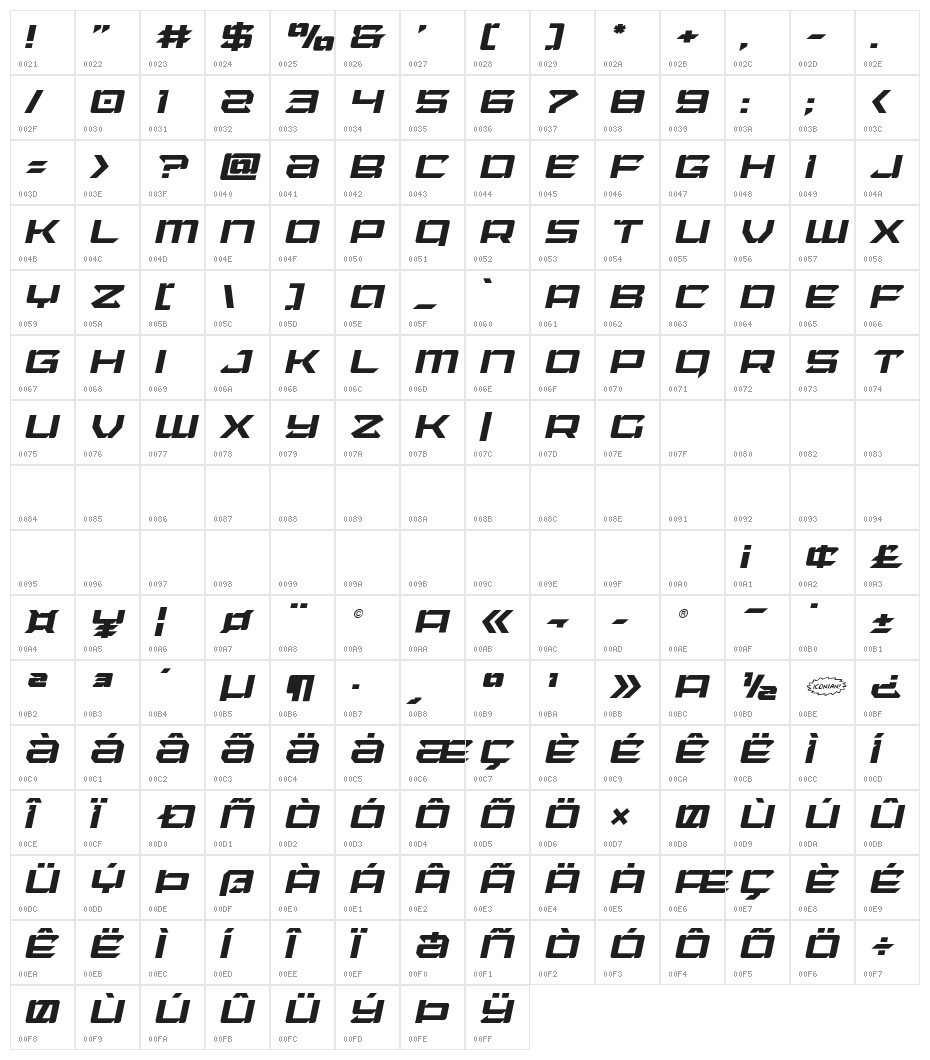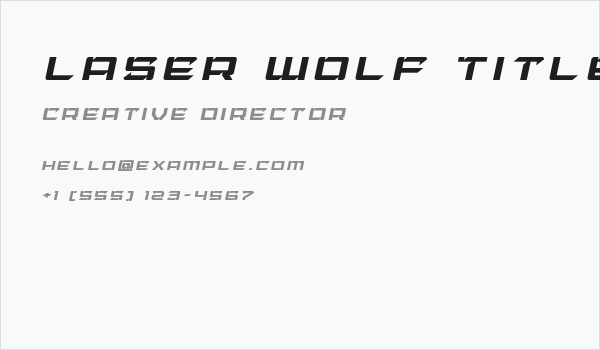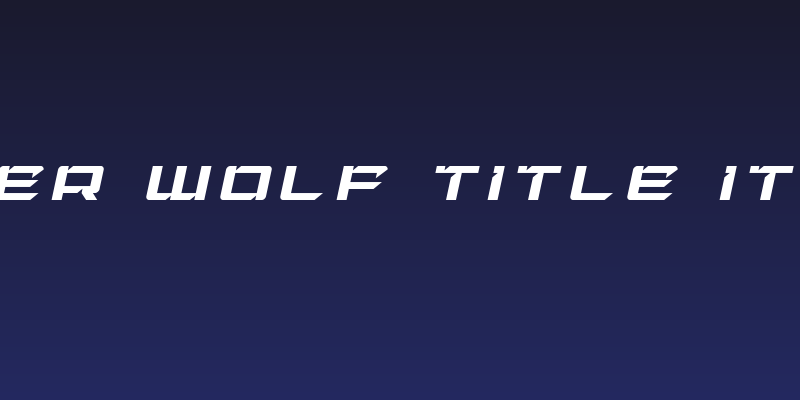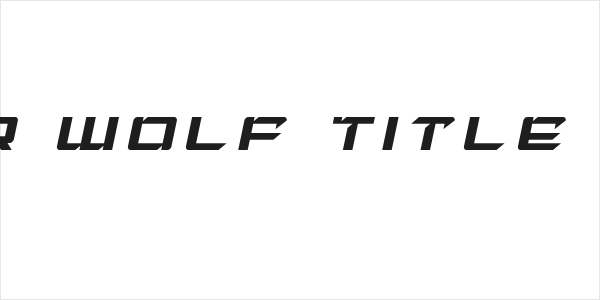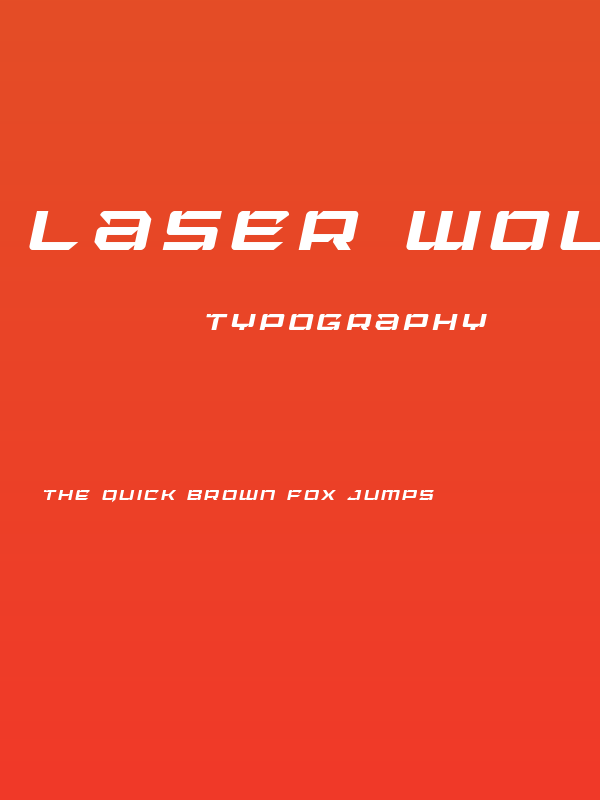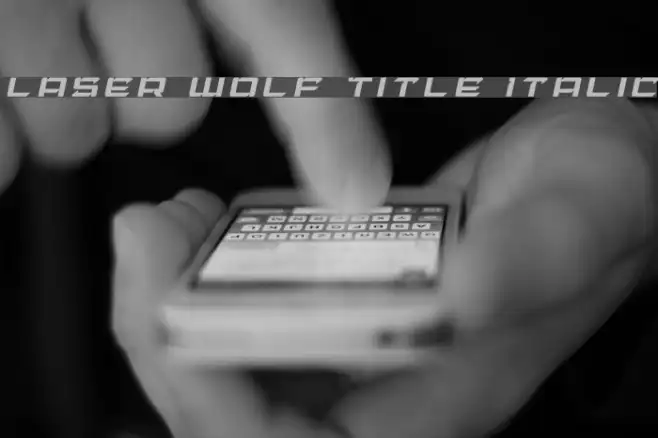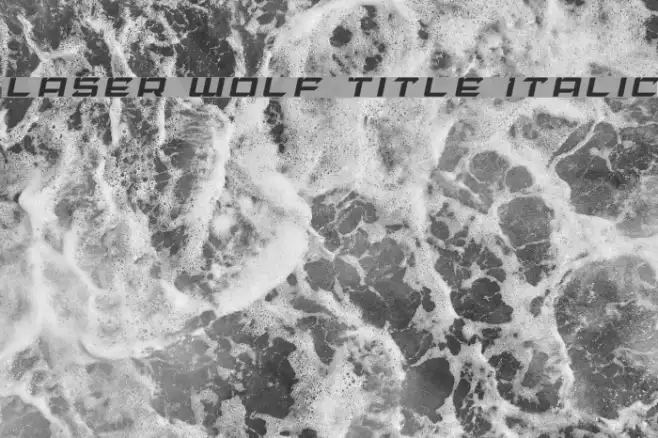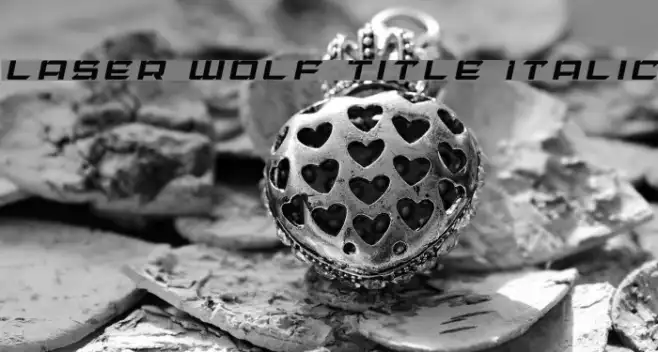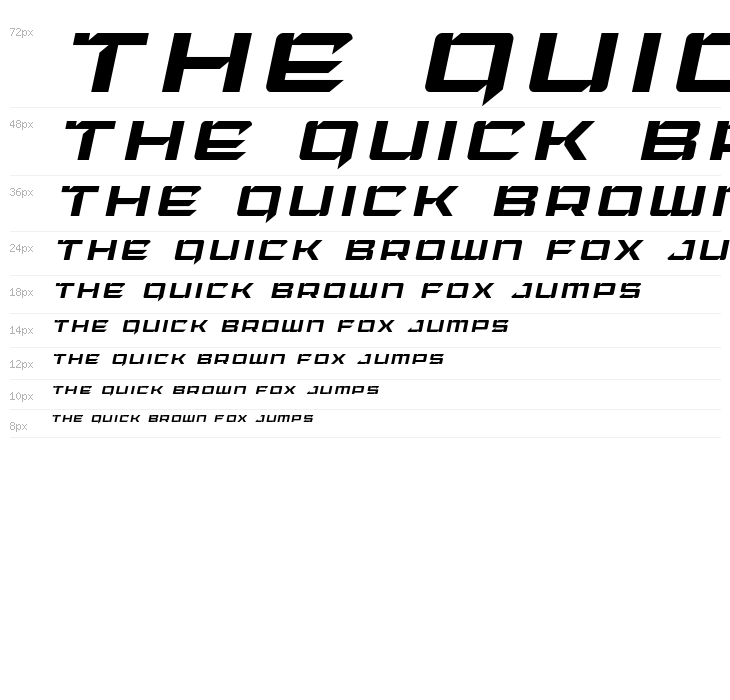
Laser Wolf Title Italic Font
Laser Wolf Title Italic Description
This font features a futuristic and angular design, characterized by its sharp edges and italicized slant. The letters are bold and have a distinct geometric style, giving them a dynamic and energetic appearance. The uppercase and lowercase letters maintain a consistent style, with a slight forward tilt that suggests motion and speed. The numbers and special characters are designed to match the angular aesthetic, making the font suitable for projects that require a modern and edgy look. The overall design is cohesive, with a focus on sharp angles and a sleek, streamlined appearance.
| Proposed Projects | Ideal for sci-fi themed projects, video game titles, tech branding, and modern posters. |